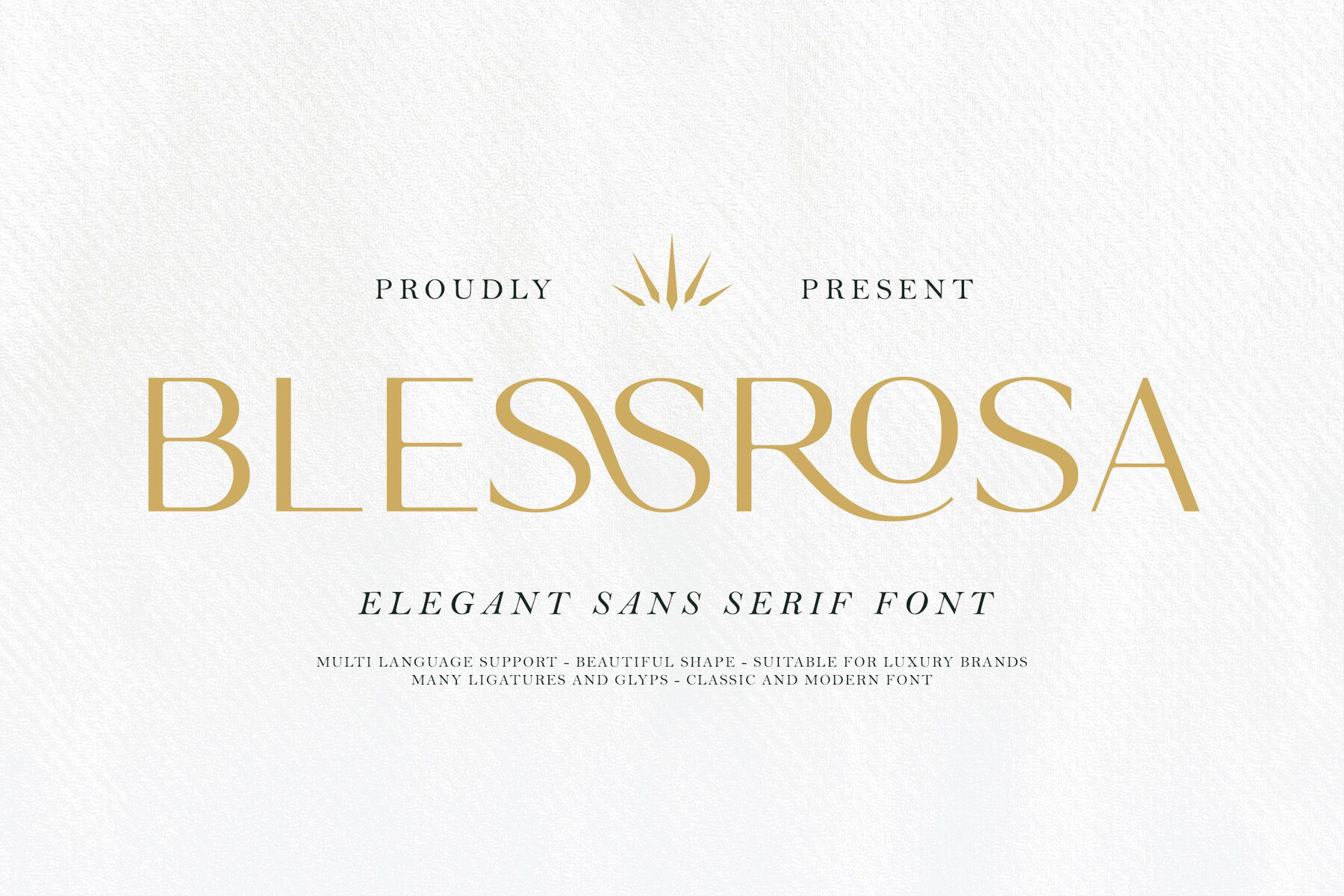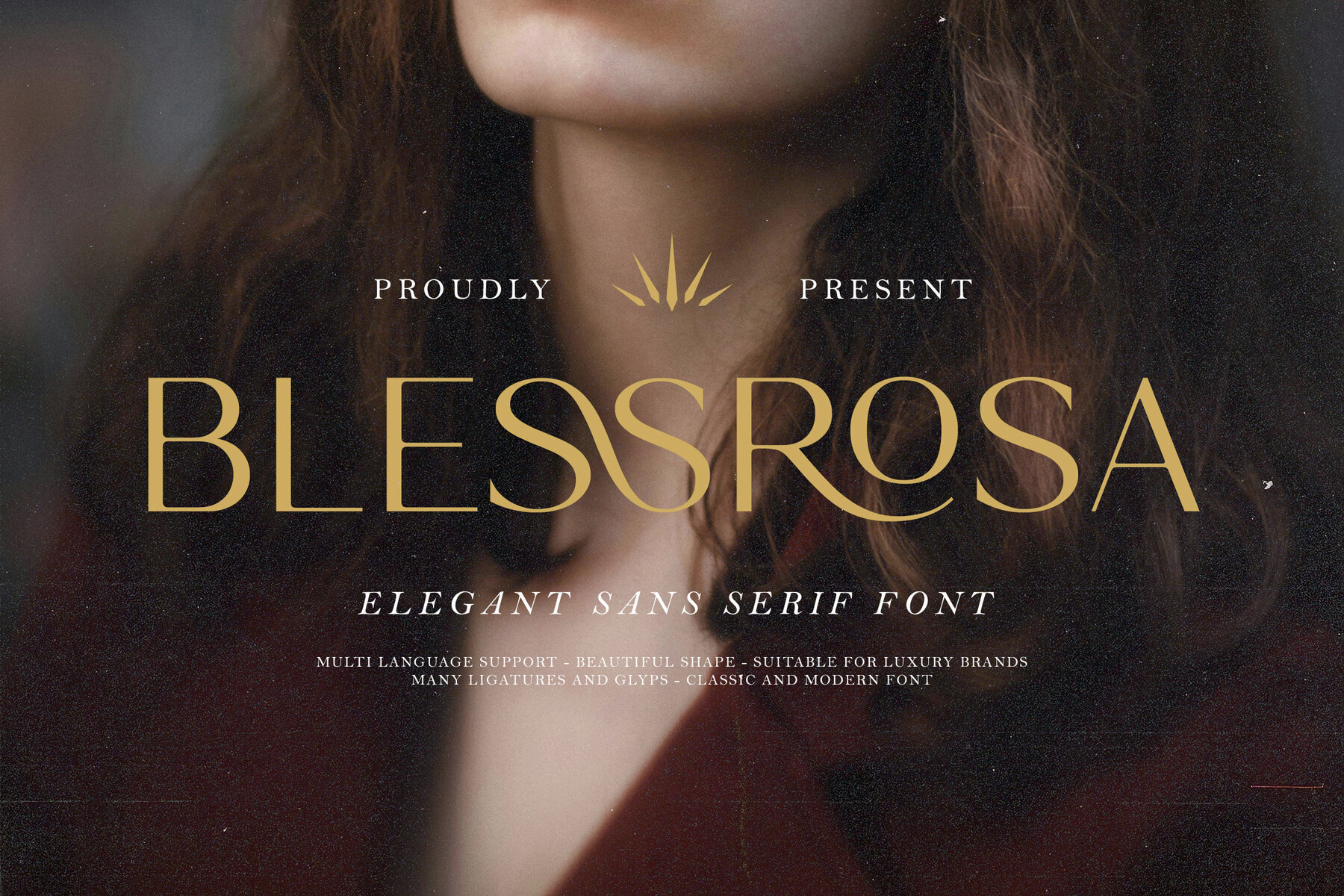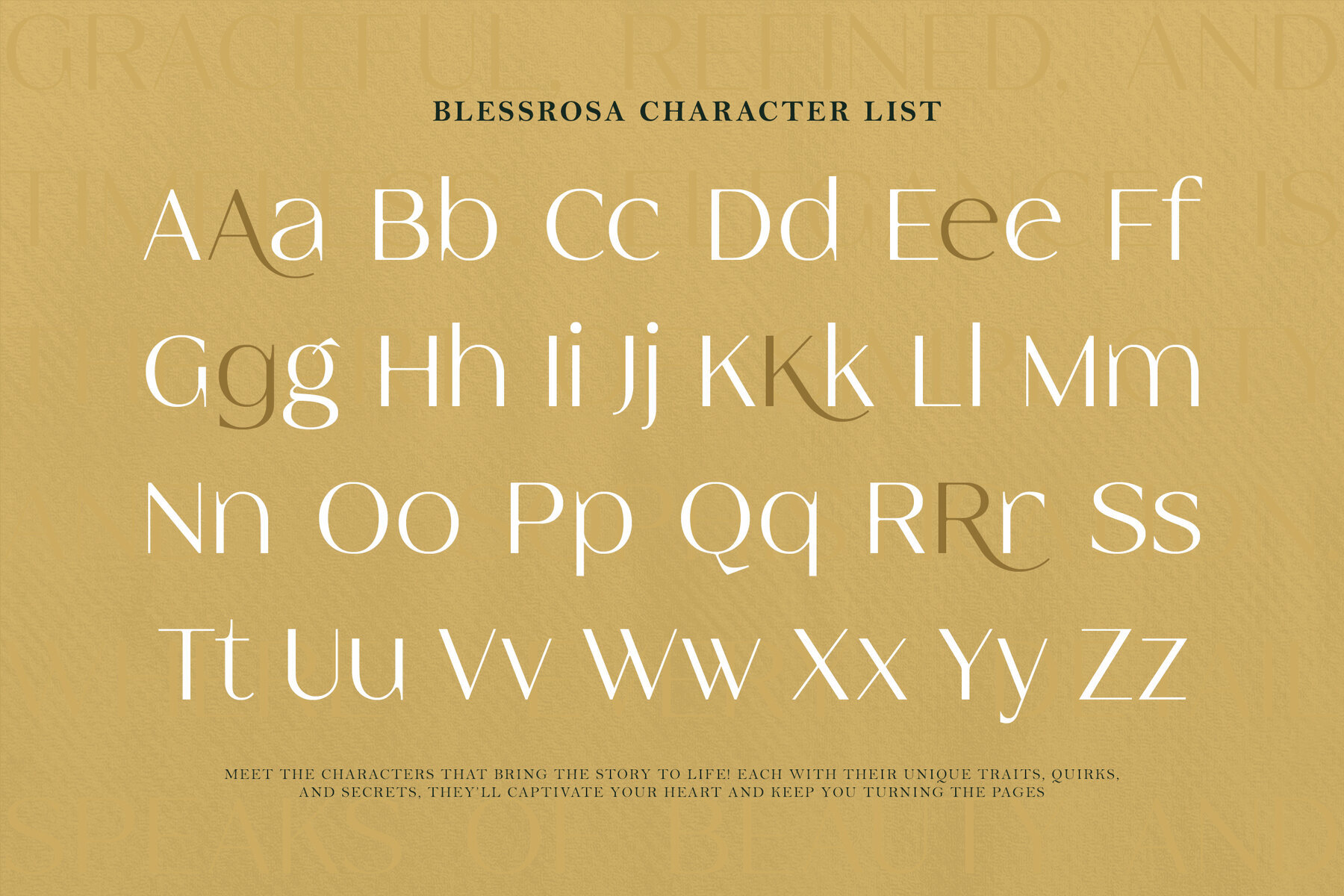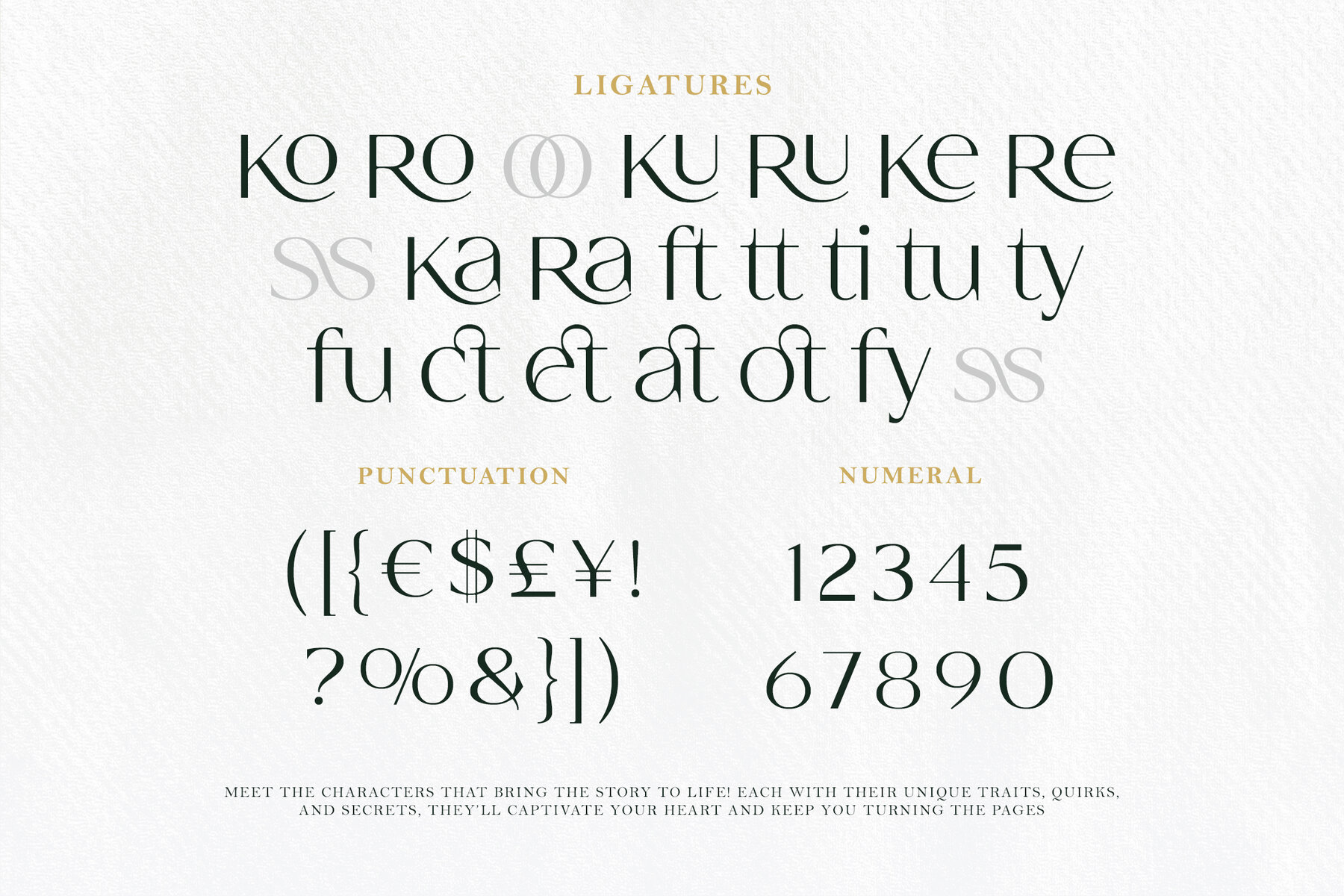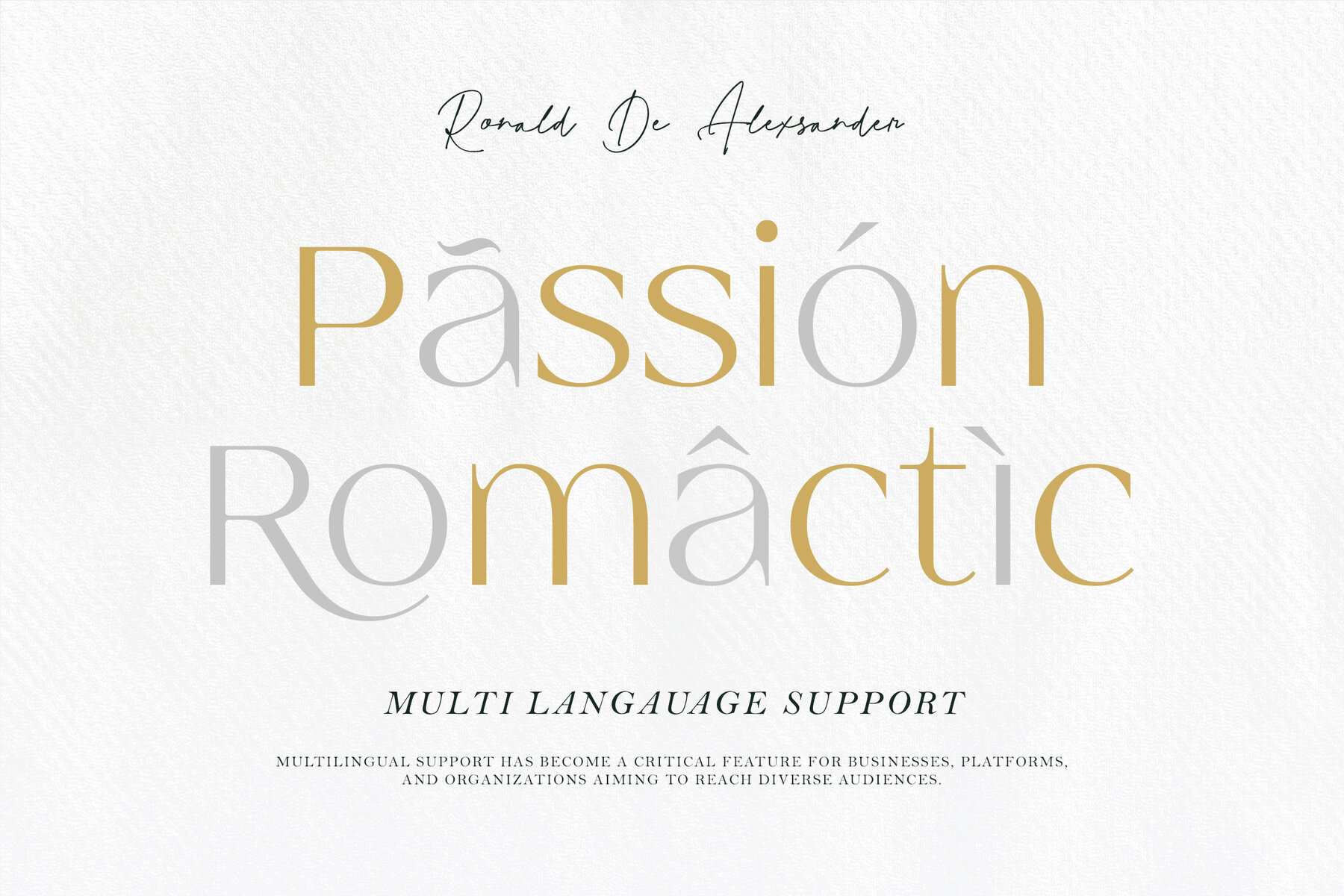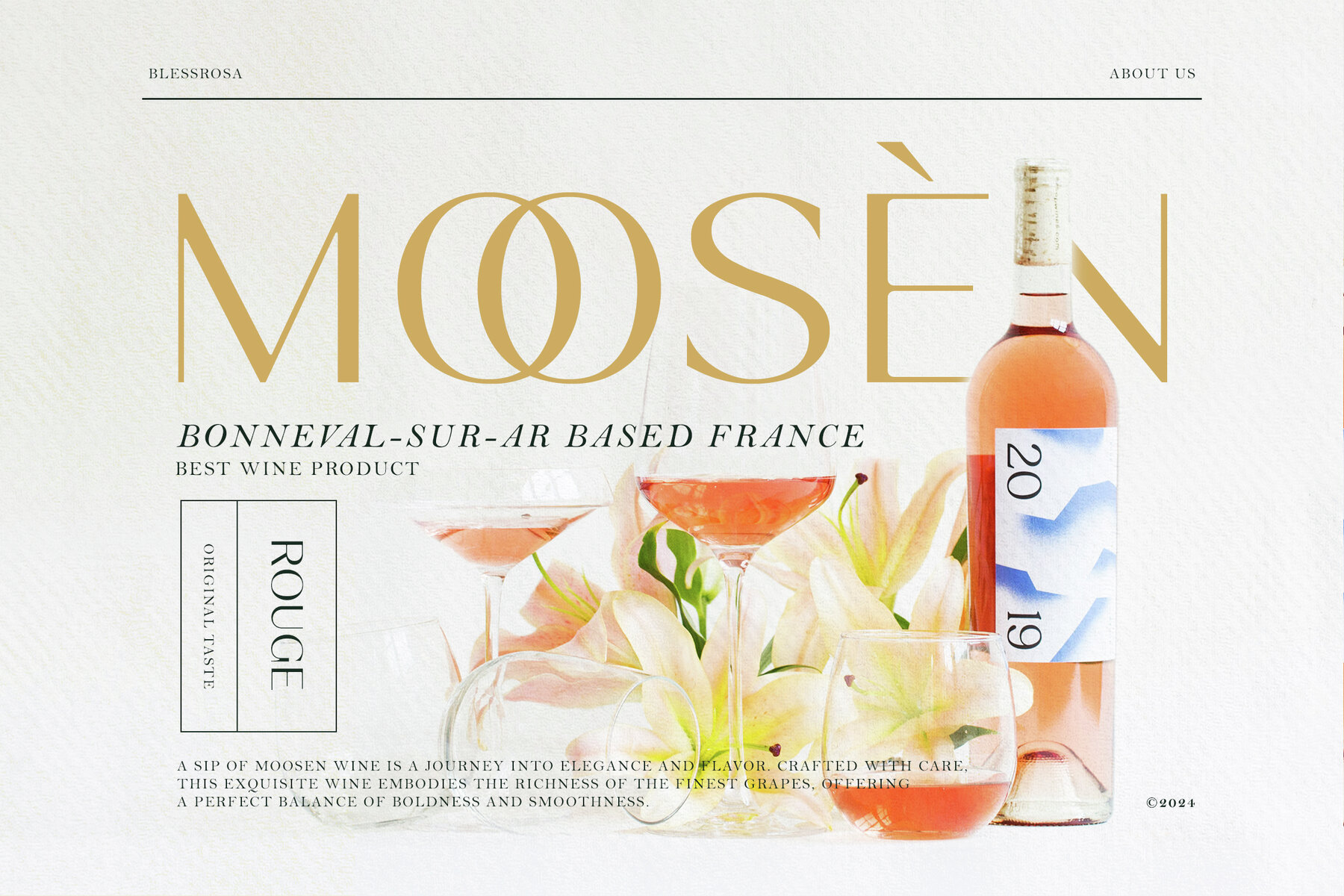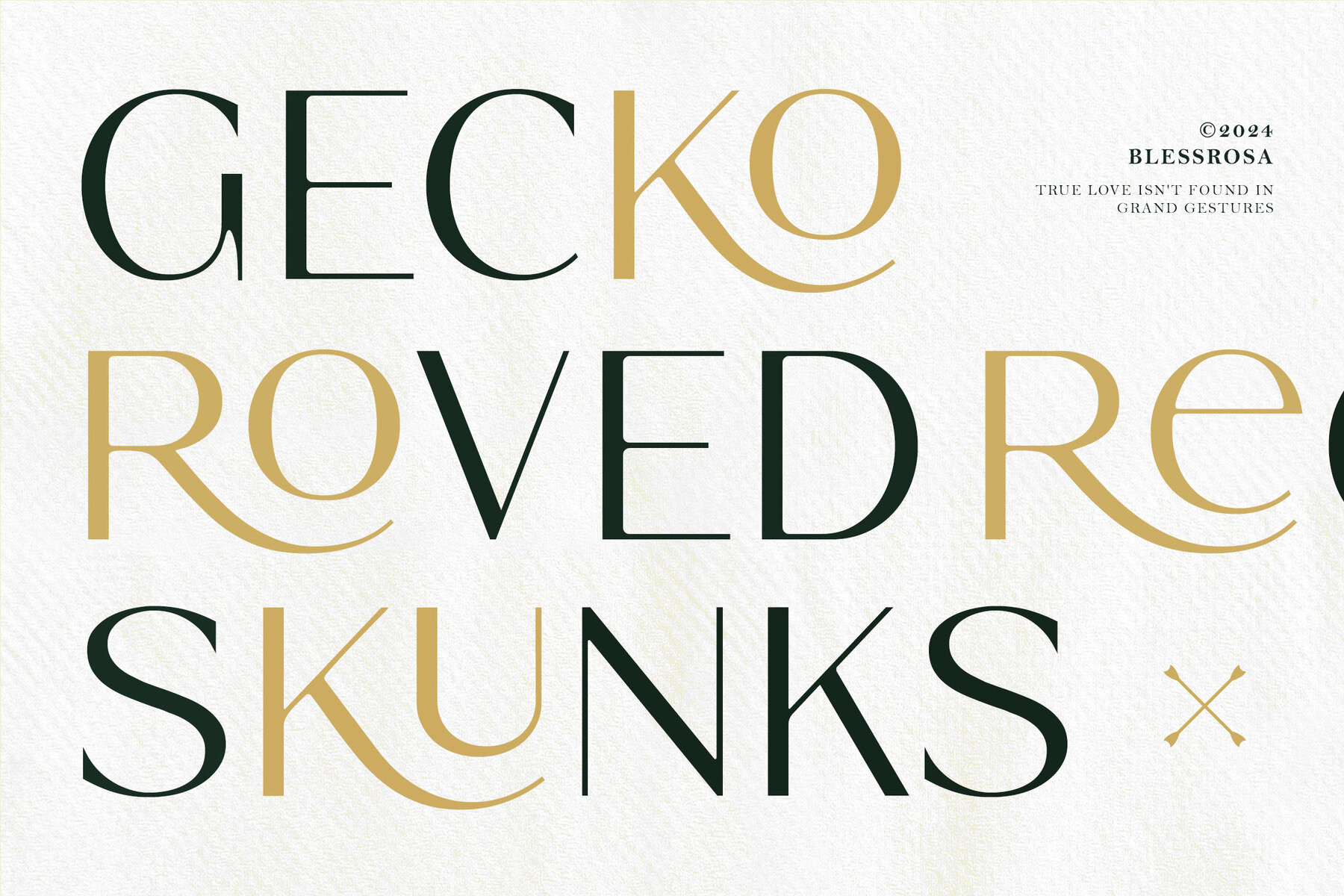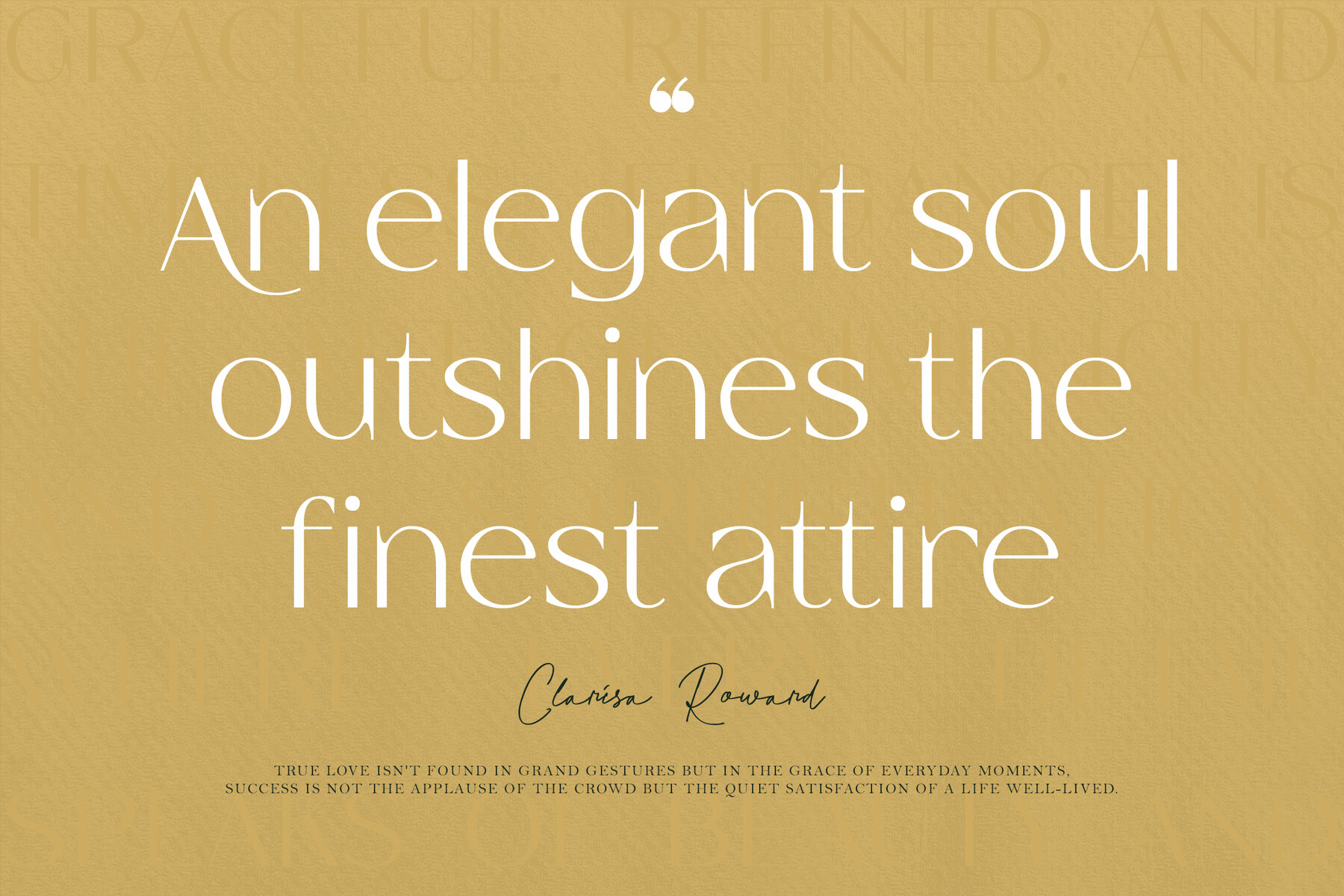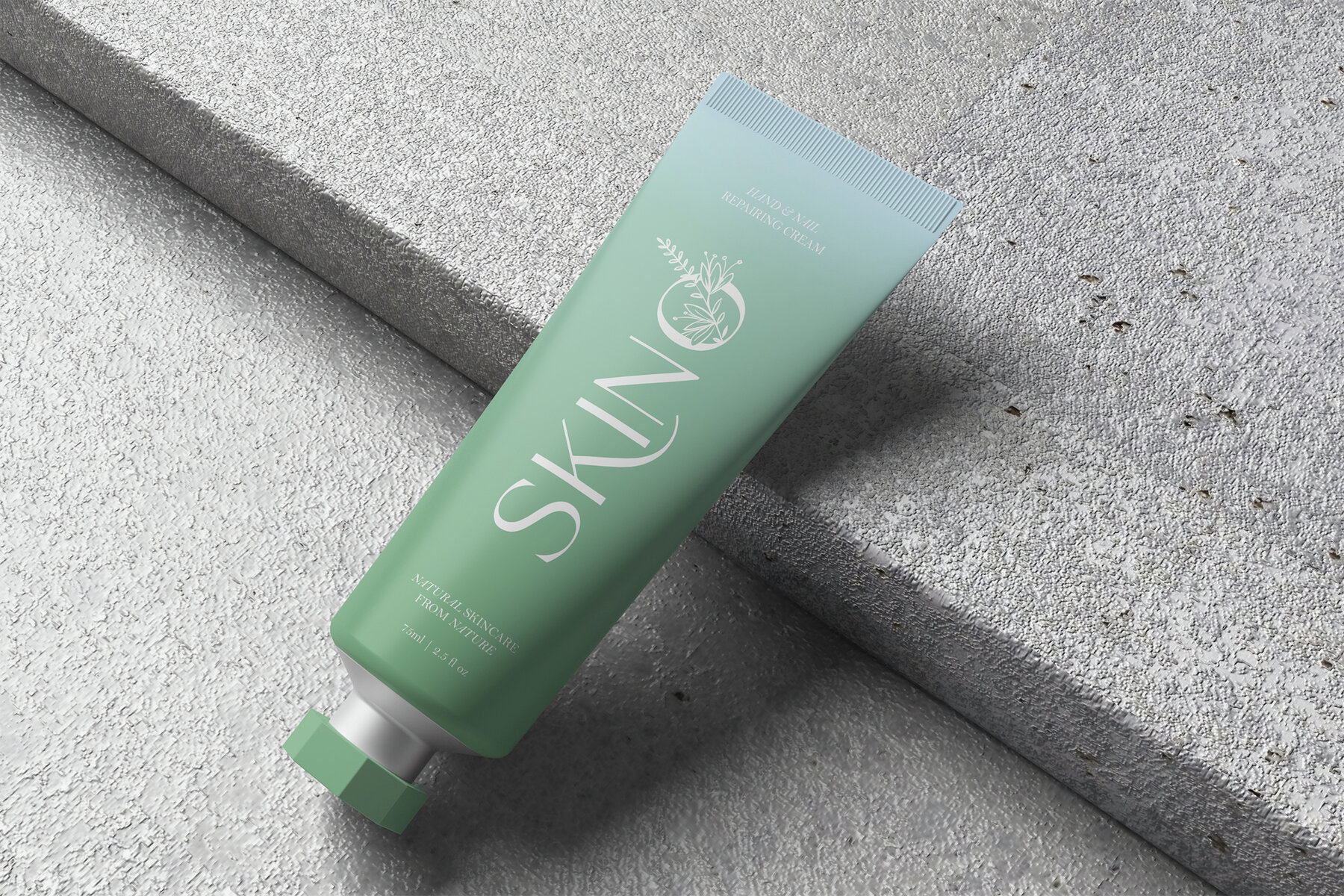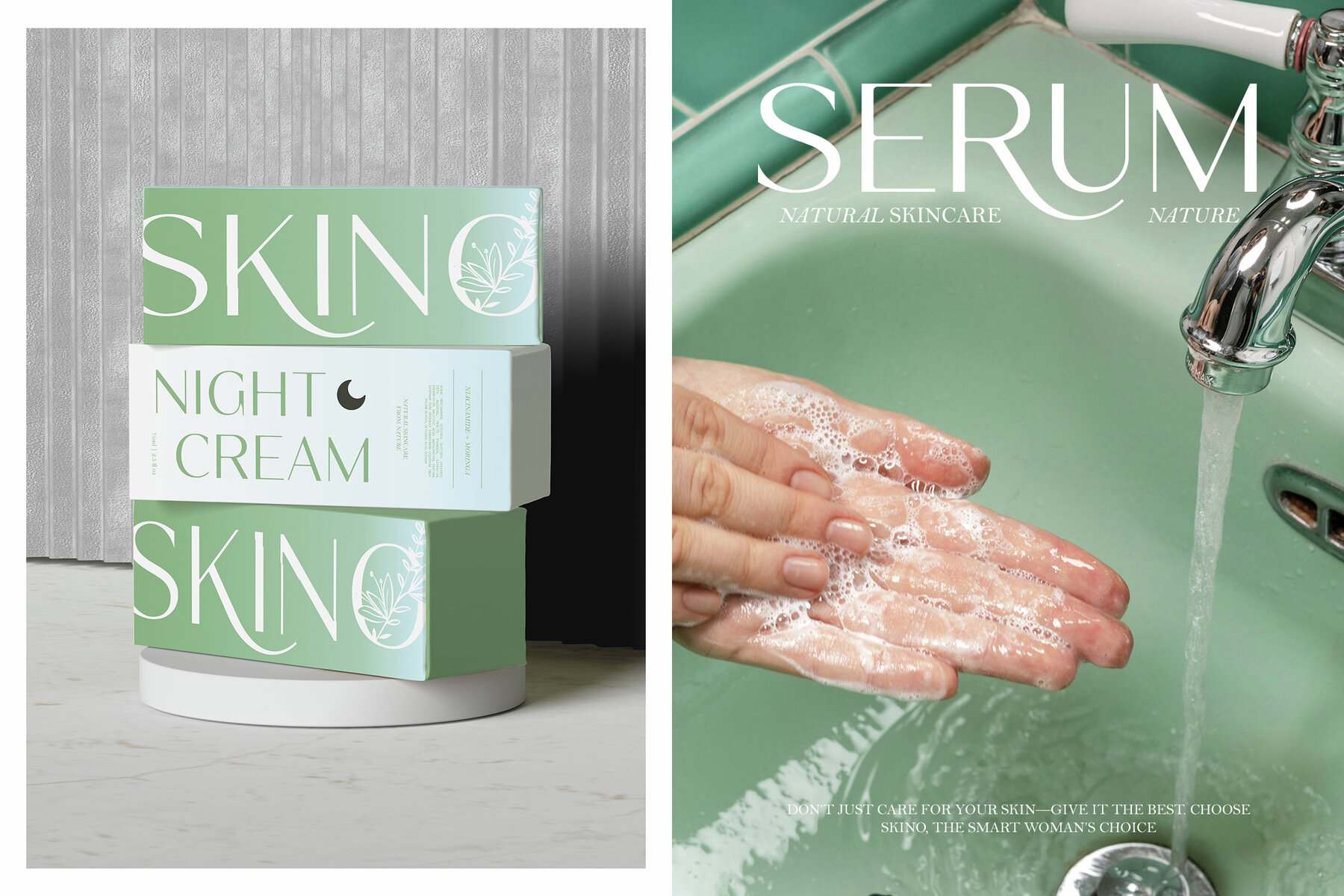
Blessrosa Font
Blessrosa Regular
Blessrosa is an elegant luxury sans serif font that seamlessly blends clean lines with graceful design elements. Its royal and beautiful style makes it ideal for creating timeless, luxurious designs. Whether you are working on high-end branding, beauty product packaging, luxury fashion editorials, minimalist logos, or chic social media content, Blessrosa is your go-to choice. It's also perfect for wedding invitations and advertising campaigns. This versatile font includes a full set of uppercase and lowercase letters, punctuation, numerals, and a variety of ligatures and alternates to enhance your creative projects.
With multilingual support, Blessrosa ensures clear communication across diverse global audiences, making it suitable for creatives and professionals who value luxury, beauty, and elegance. Its clean sans serif design provides excellent readability, while its sophisticated style adds a touch of class to your projects. Embrace the sophistication and flair of Blessrosa to create stunning visuals that stand out.